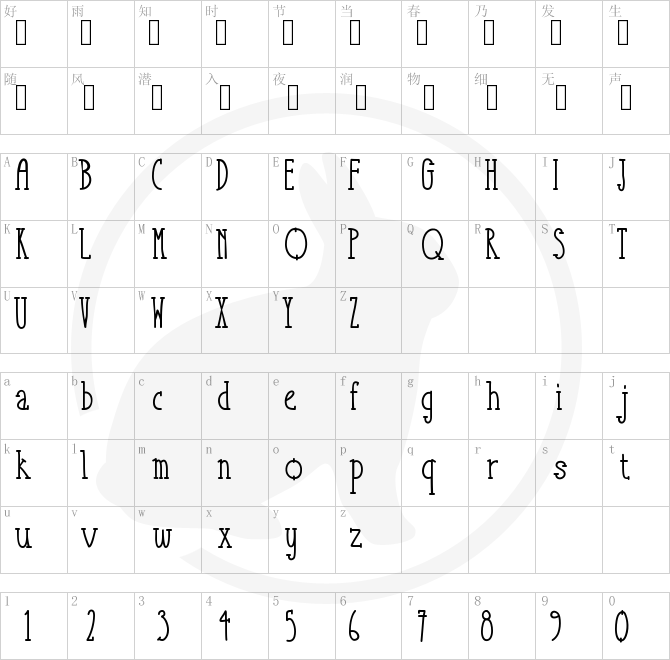
- Font Name:TakeItOrLeaveItSerif
TakeItOrLeaveItSerif.ttf is a very beautiful artistic font, TakeItOrLeaveItSerif.ttf is widely used in the design and printing of various books and pictures,TakeItOrLeaveItSerif.ttf has a strong visual impact,TakeItOrLeaveItSerif.ttf is a commonly used font in newspapers, magazines and books, and is used in posters, e-commerce Poster design, store design, logo design, font design and other fields.TakeItOrLeaveItSerif.